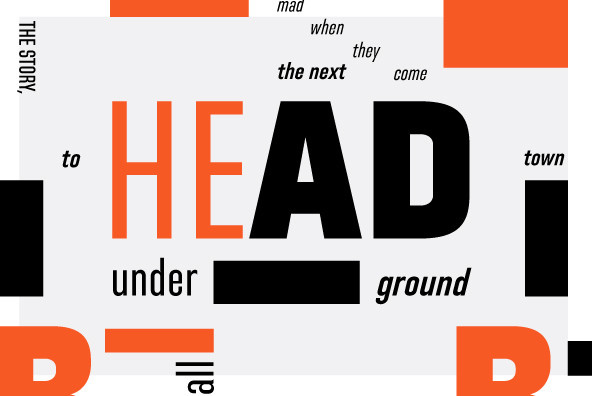
Directors Gothic 220 Font
Directors Gothic 220 Font is perfect for entertainment industry branding, film production companies, theatrical poster design, cinema venue signage, movie title sequences, entertainment agency identities, broadcast television graphics, and dramatic advertising campaigns. This commanding typeface works exceptionally well in both digital applications and print media where cinematic authority and entertainment industry credibility are fundamental design requirements.
What makes Directors Gothic 220 Font so exciting is its authoritative interpretation of Hollywood golden age typography through bold letterforms that embody the same commanding presence and professional gravitas that defines successful film production and entertainment industry leadership. The font features powerful characters with cinematic proportions, directorial strength, and entertainment-focused details that communicate creative authority, production excellence, and the commanding vision necessary for successful entertainment projects. Its professional personality and Hollywood heritage make it ideal for entertainment brands seeking to establish industry credibility while appealing to audiences who respect cinematic craftsmanship and professional entertainment production.
The Directors Gothic 220 Font family includes comprehensive weight variations from regular to ultra-bold, along with condensed styles and cinematic alternates. Each style maintains the typeface's authoritative character while offering extensive multilingual support, production-focused numerals, entertainment industry punctuation marks, and special symbols designed to enhance film communications and entertainment branding efforts across global media markets.
This remarkable typeface represents the perfect convergence of entertainment industry tradition and contemporary typography for film and media industries. Whether you're developing production company identities, creating theatrical marketing materials, or designing broadcast television graphics, Directors Gothic 220 Font Free Download delivers the cinematic authority and versatility needed for successful entertainment communications. The font's Hollywood aesthetic makes it particularly effective for film studios, production companies, entertainment agencies, and organizations celebrating the professional artistry and creative leadership of the entertainment industry.
The precisely engineered cinematic construction and optimized entertainment performance in Directors Gothic 220 Font ensure maximum industry credibility while maintaining clear communication across all film applications. Its commanding presence makes it ideal for entertainment branding, cinematic marketing campaigns, and professional communications where its full directorial character can create lasting impressions and establish immediate association with entertainment excellence and professional film industry standards.